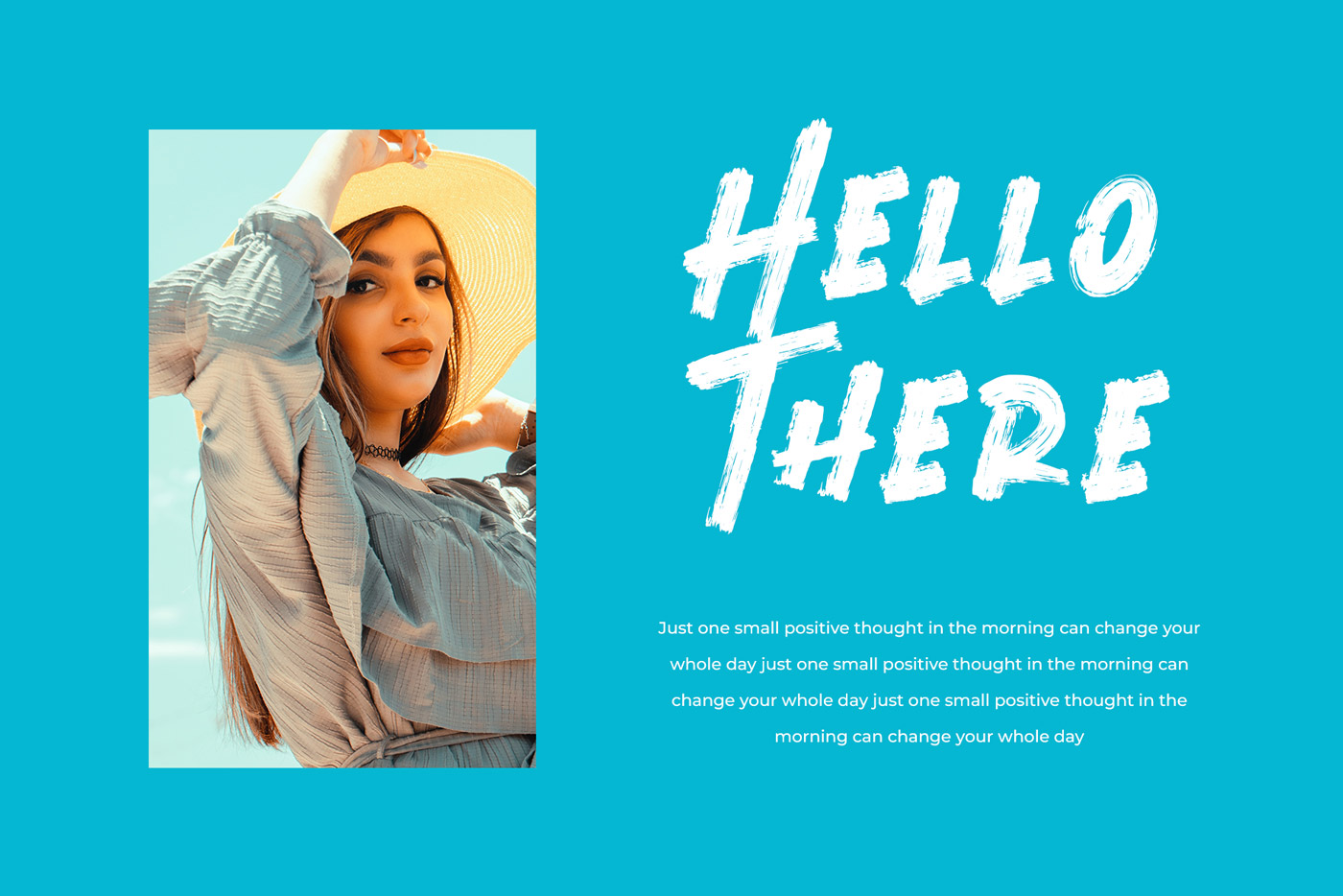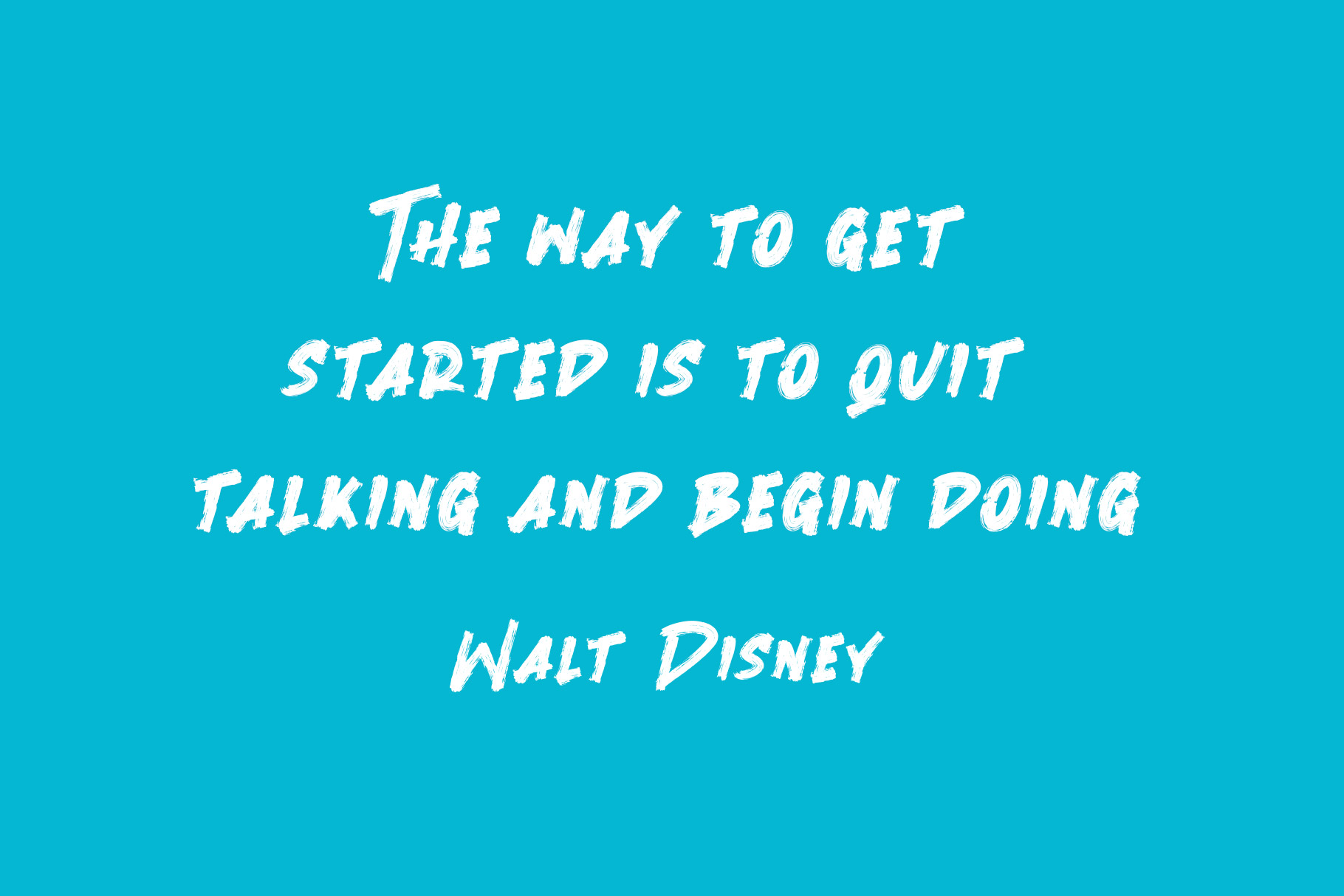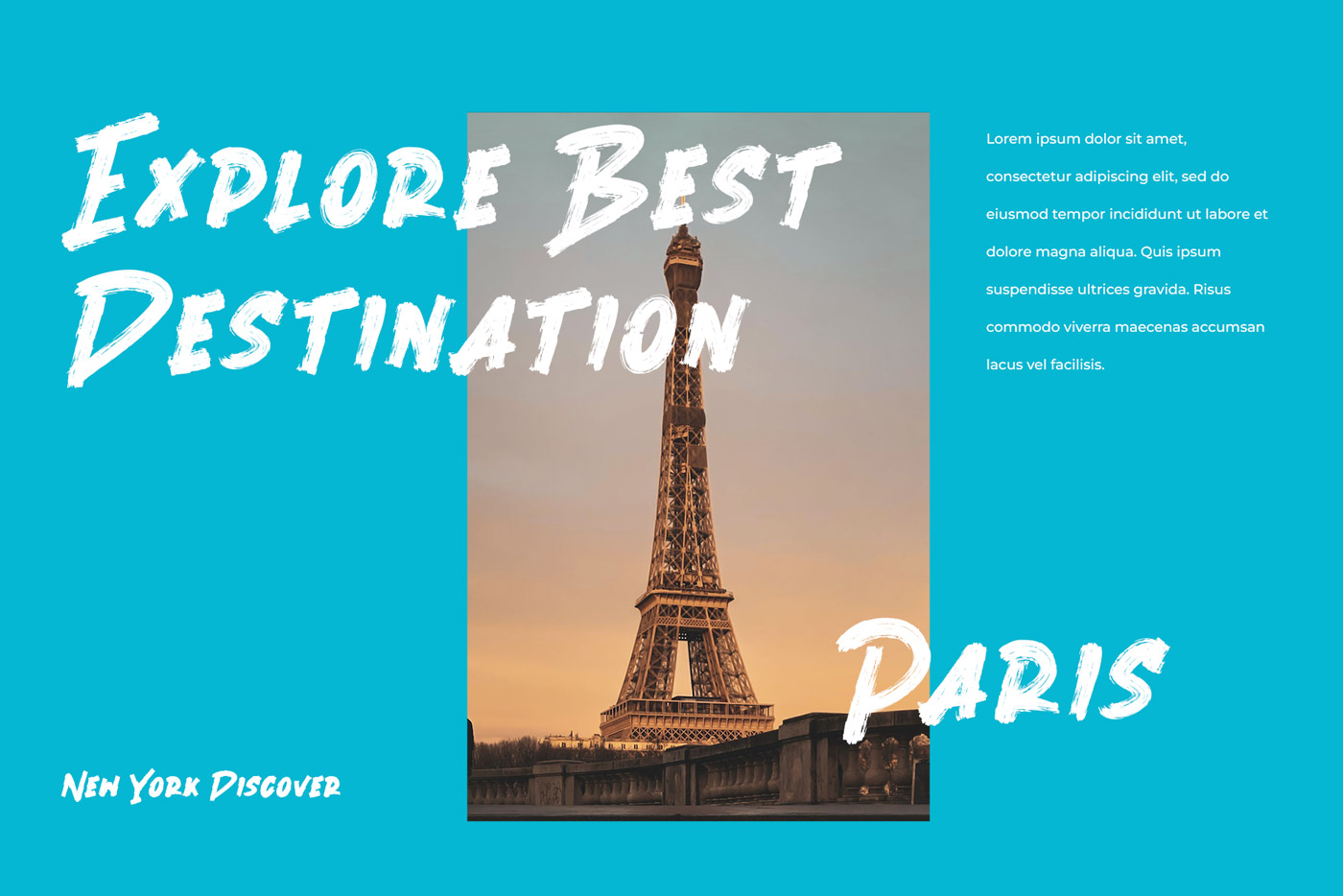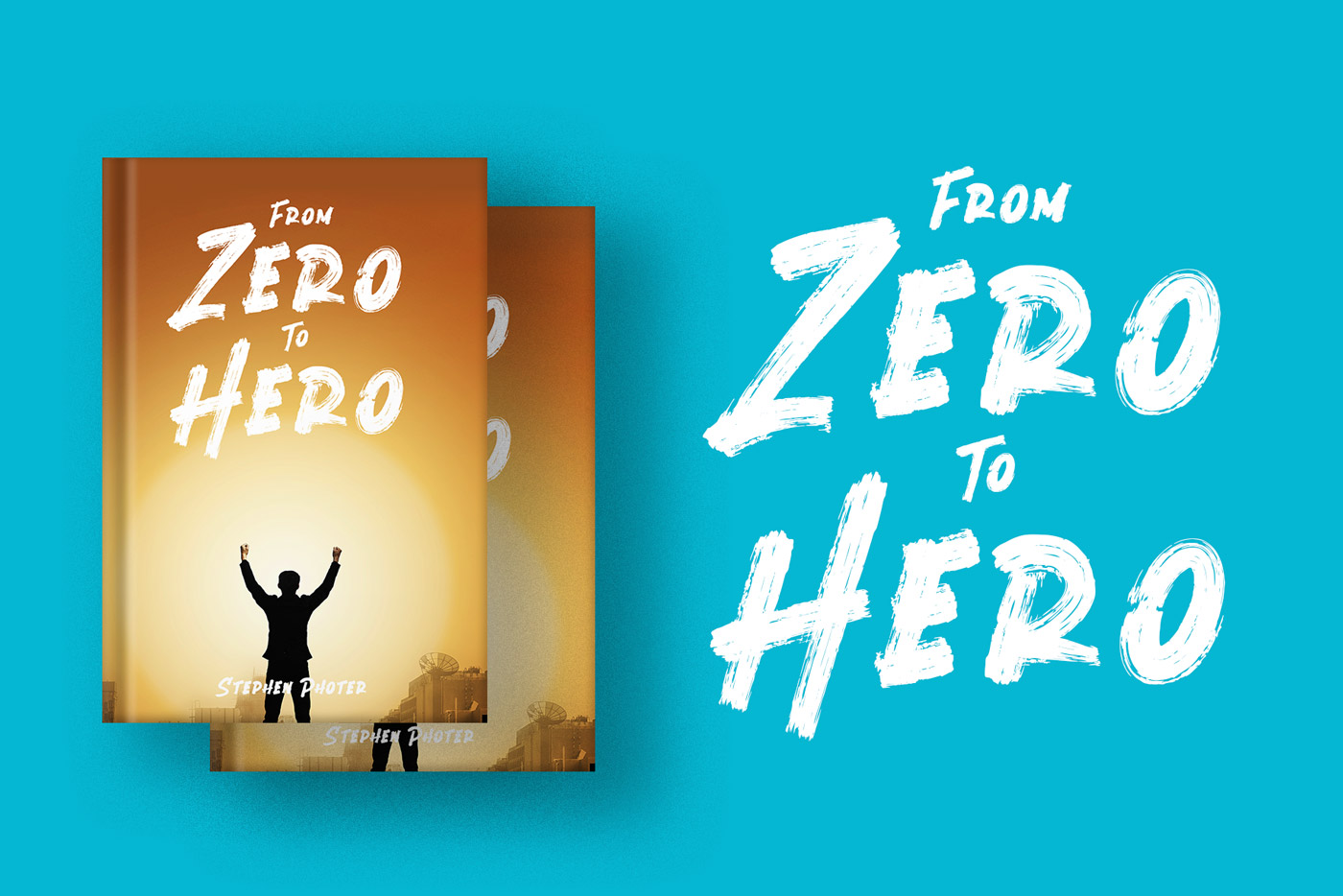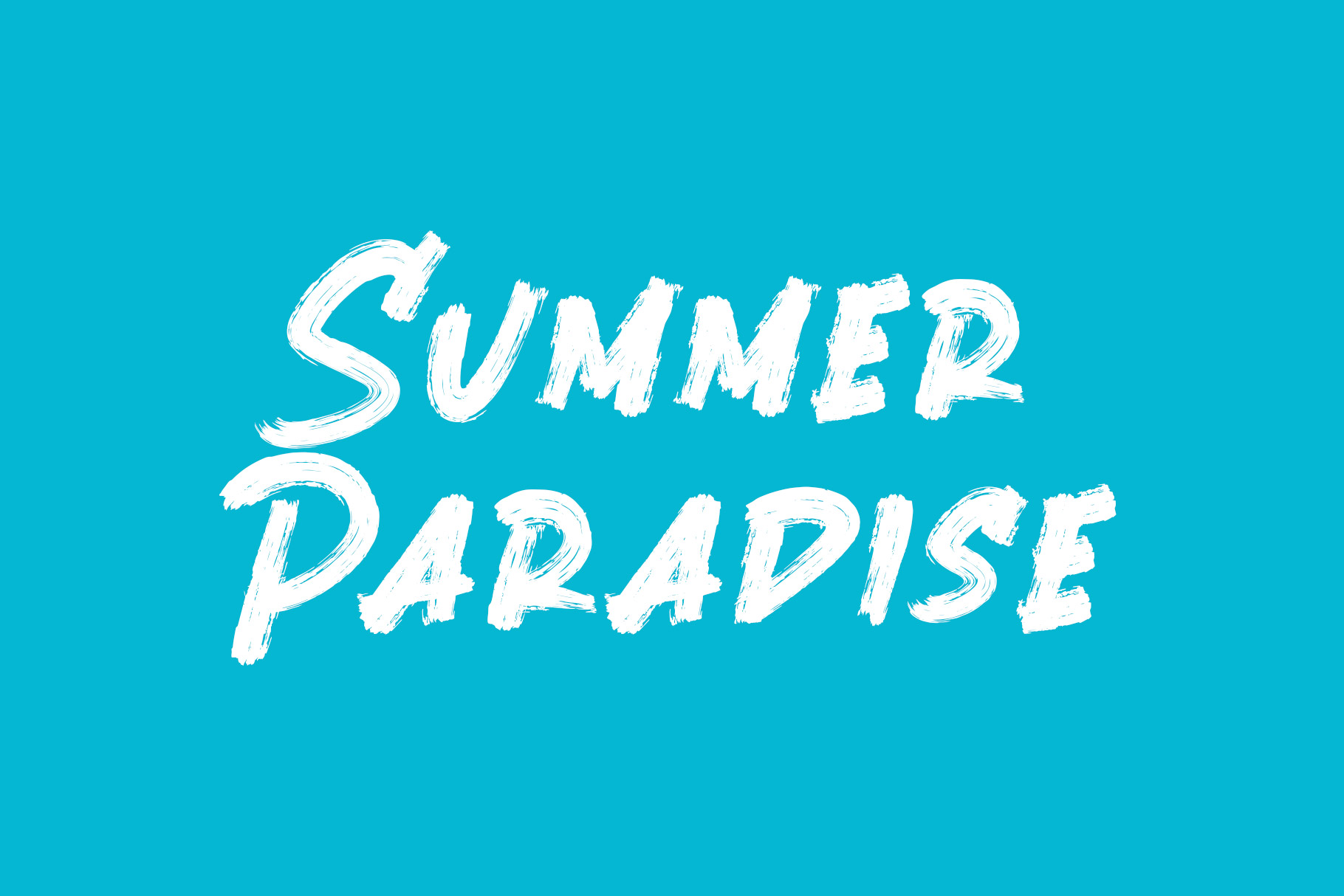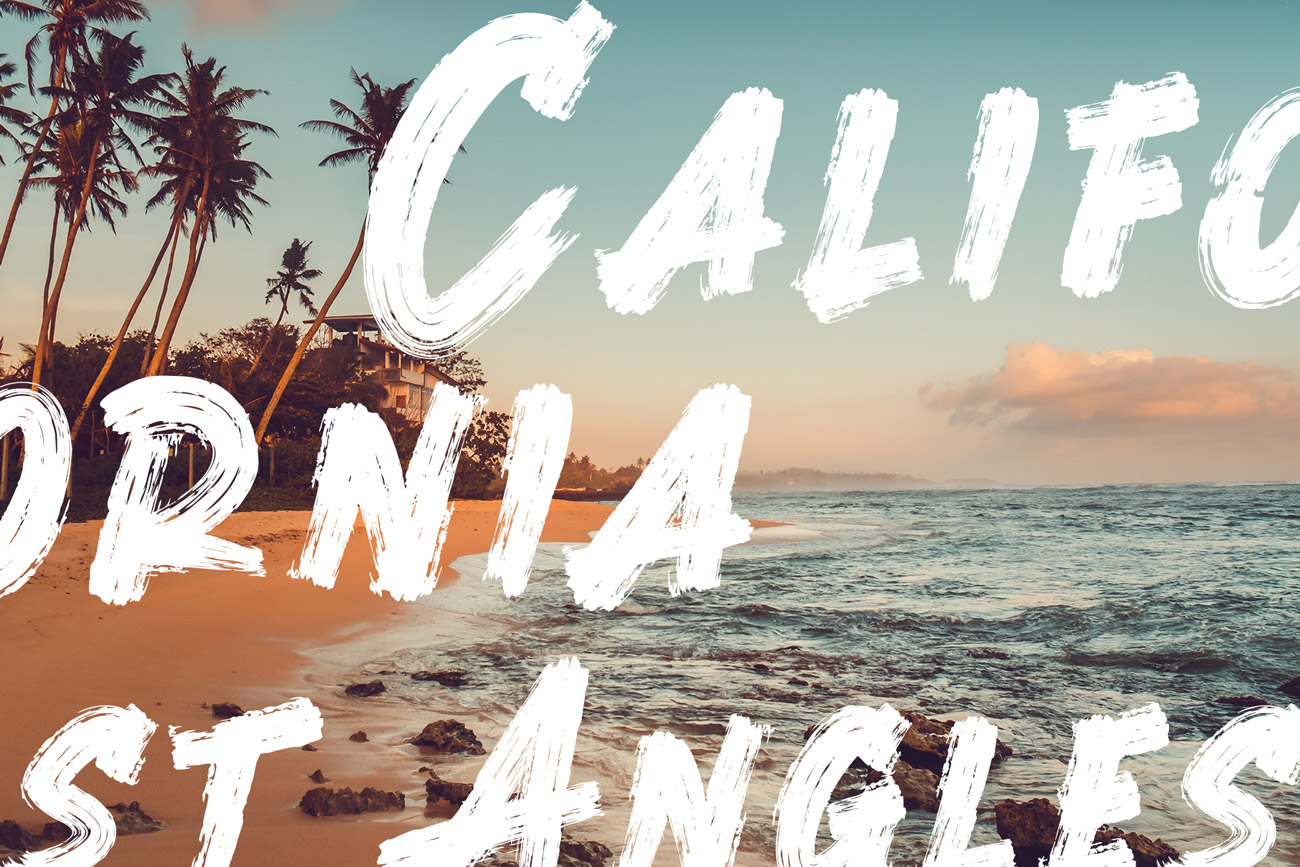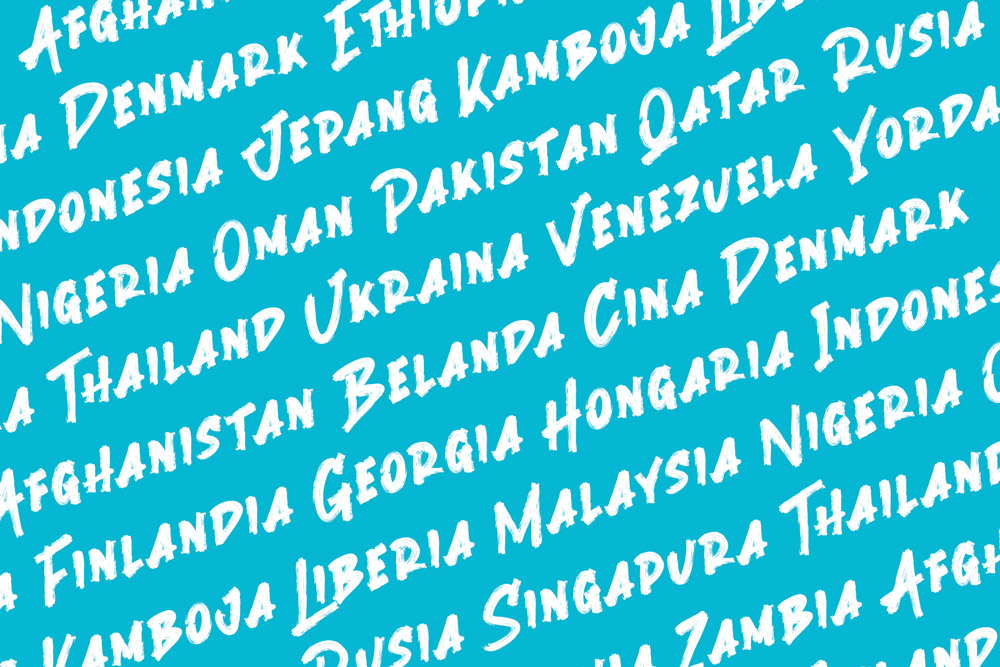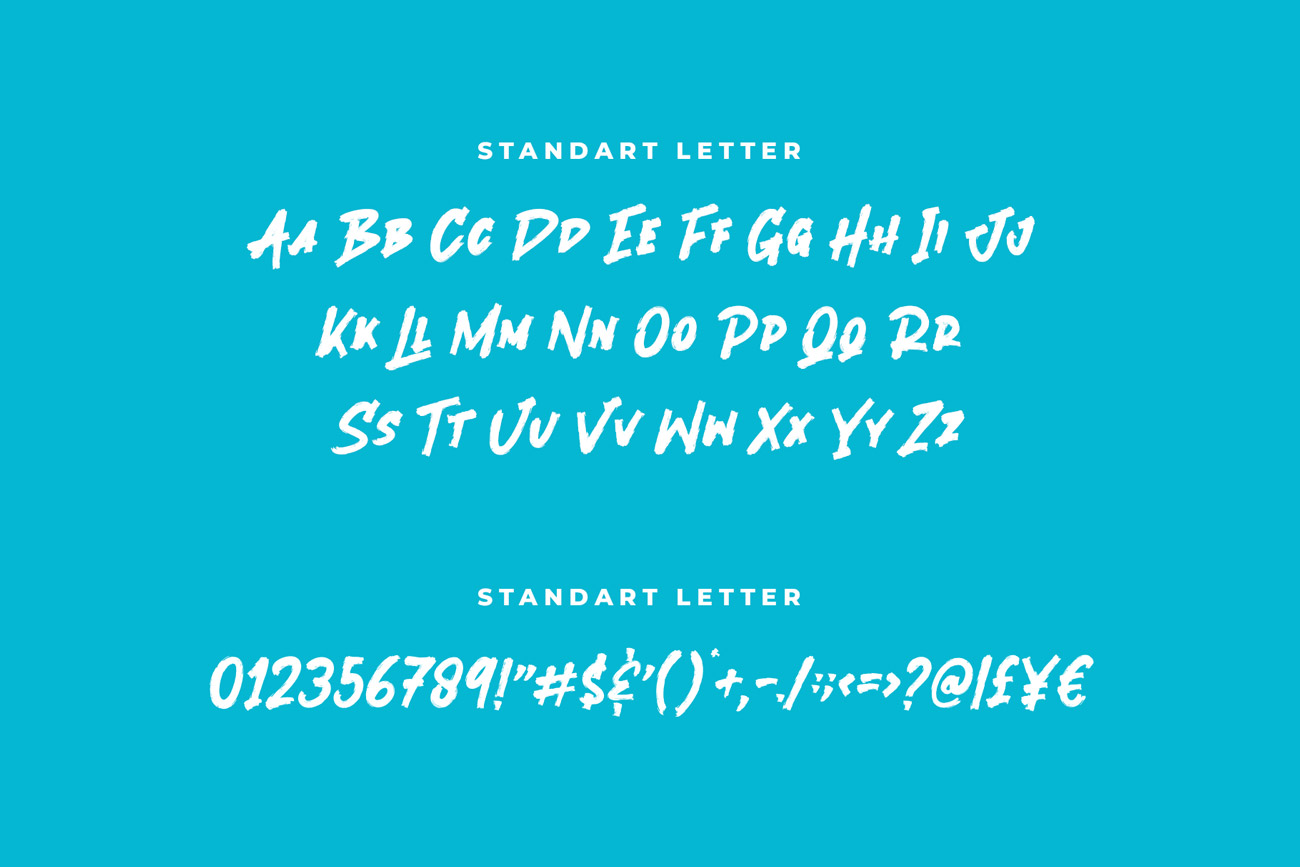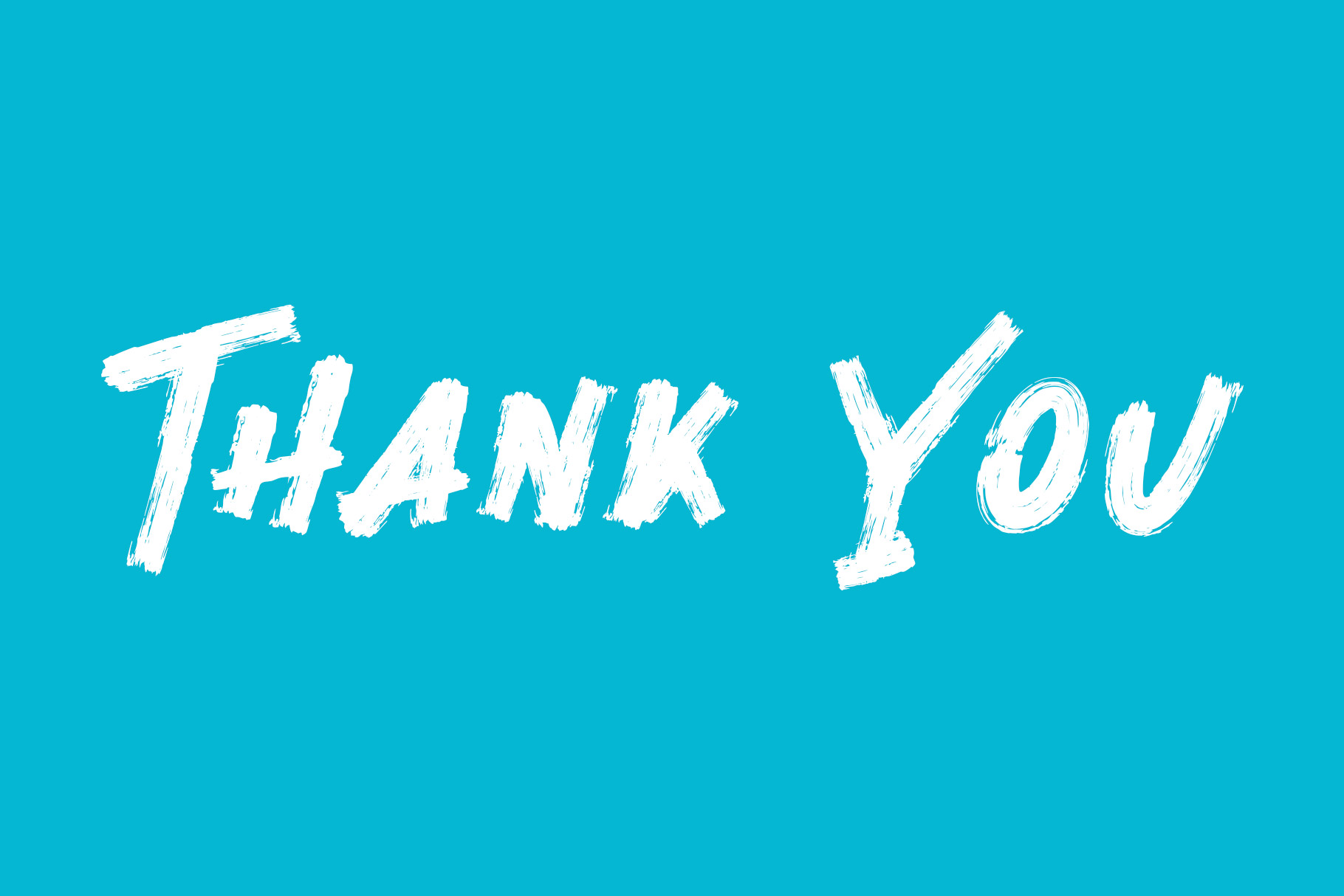
Fresh Sunday Brush Font
Fresh sunday is authentic hand brush imperfections. It has a perfectly paired complimentary marker font. We keep this font looks modern, readable, stylish, strong, cool, bold, catchy and easy to use. Fresh Sunday is the great choice for watermark on photography, logo design, quotes, album cover, magazine, tshirt and many other design project. Fresh Sunday here to make your work to high level!!!